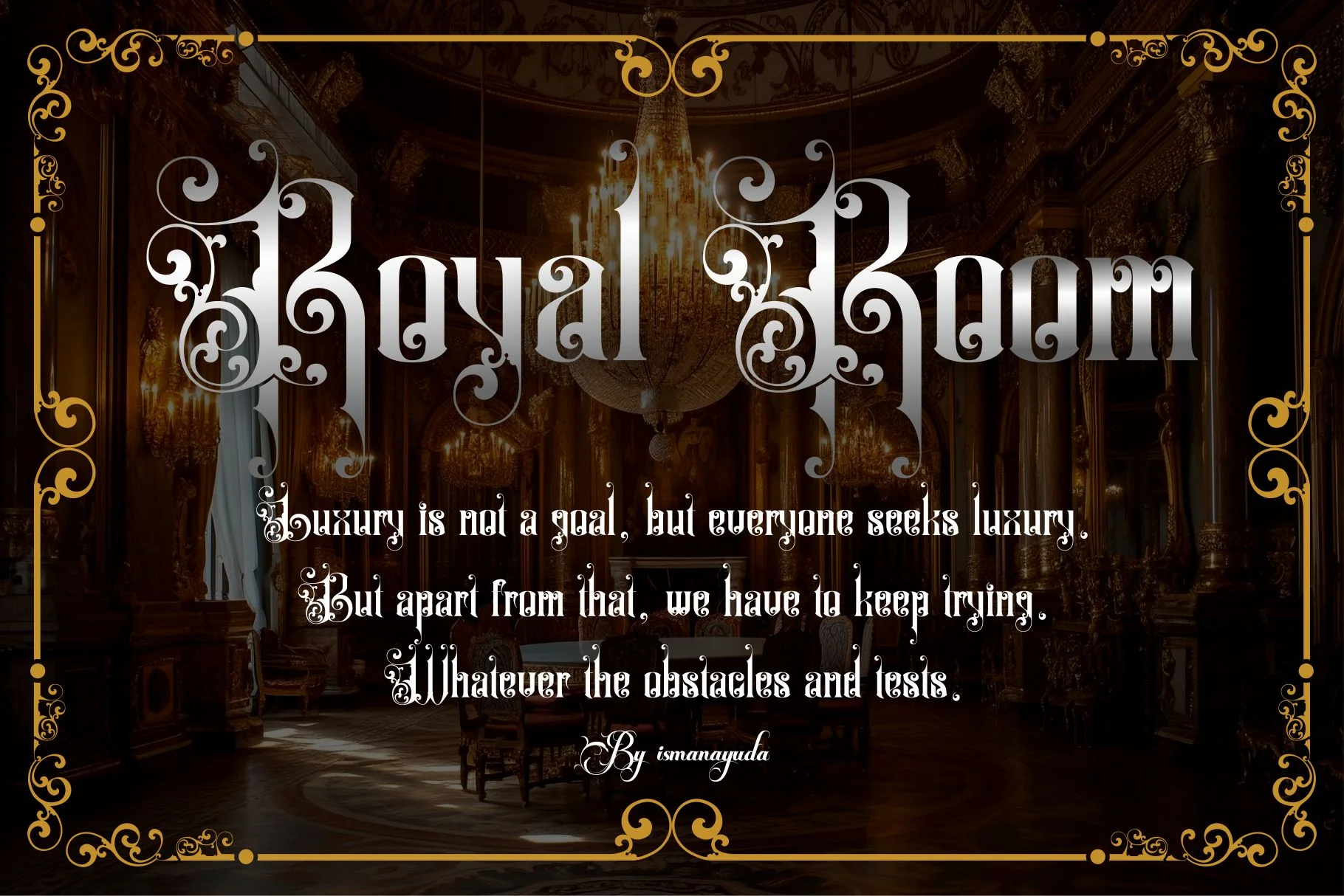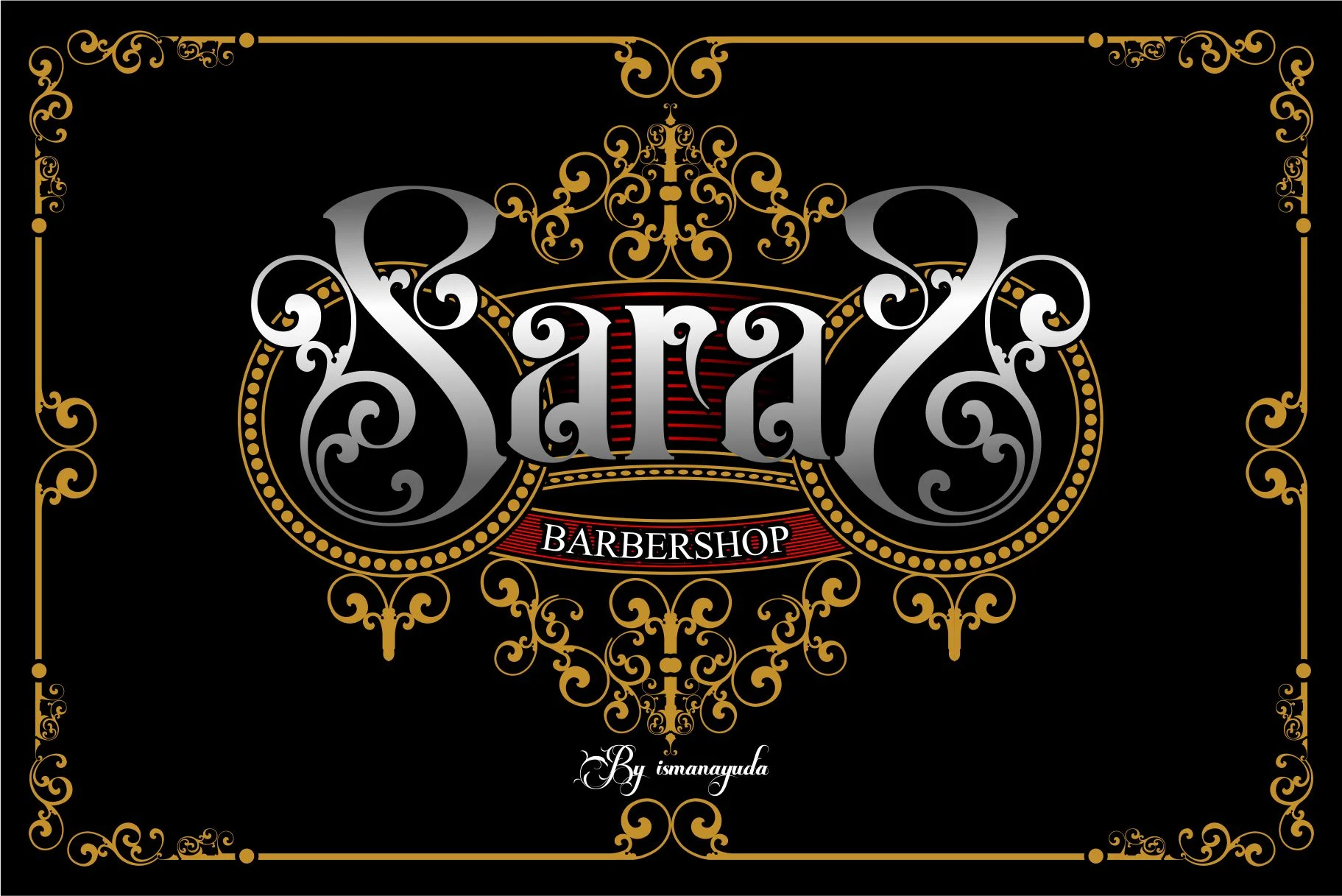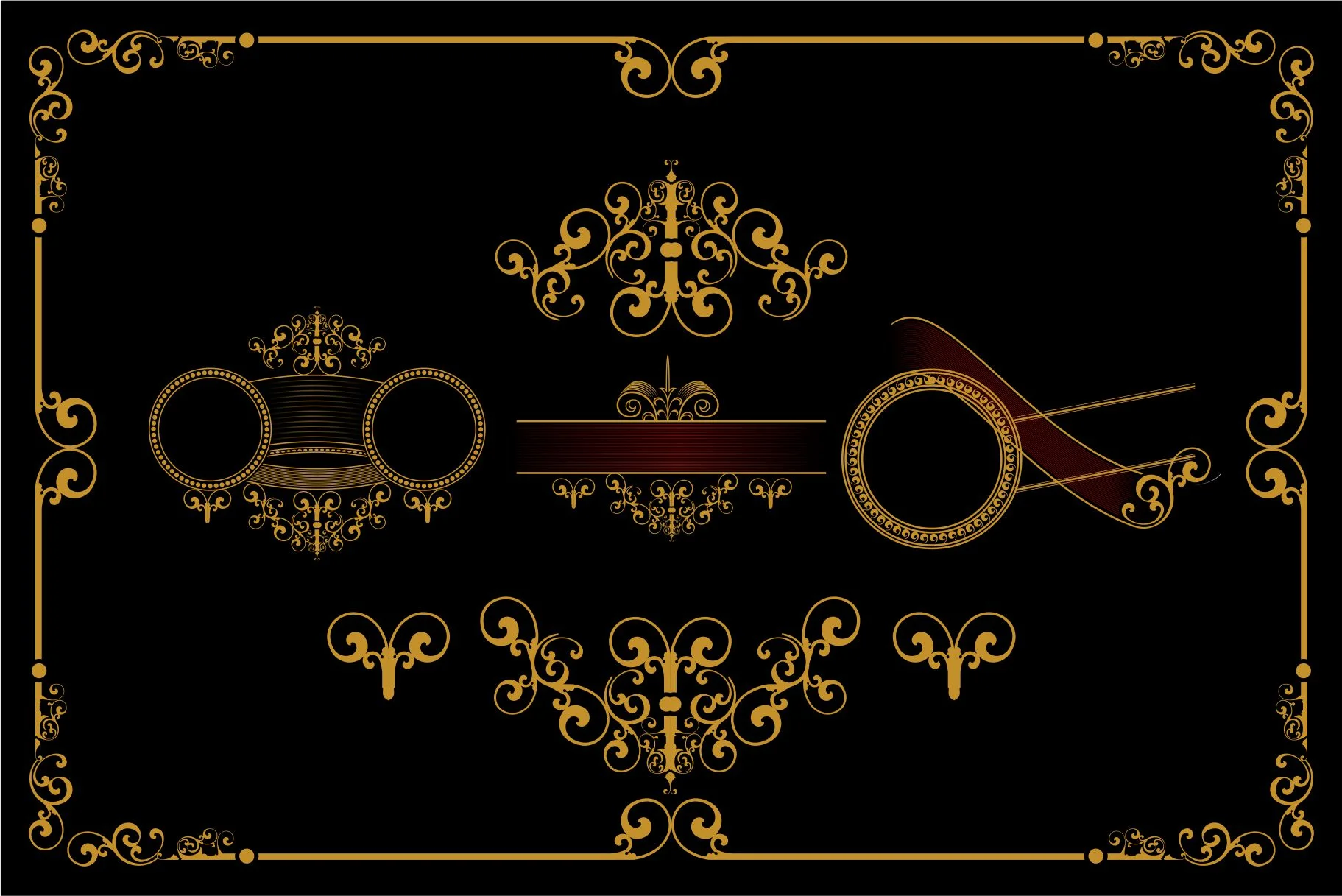
the Shallter
The Shallter is a Victorian royale-style font characterized by its highly ornamental and vintage aesthetic. It features intricate flourishes, sweeping swashes, and a classic gothic influence that gives it an authoritative yet delicate appearance. This high-impact display font is specifically designed for specialized branding needs, such as tattoo studio logos, metal band identifiers, and signage for upscale cafes or coffee shops. Its presentation often includes a set of matching decorative ornaments and frames, which are intended to complement the typography for a complete Victorian-era look.